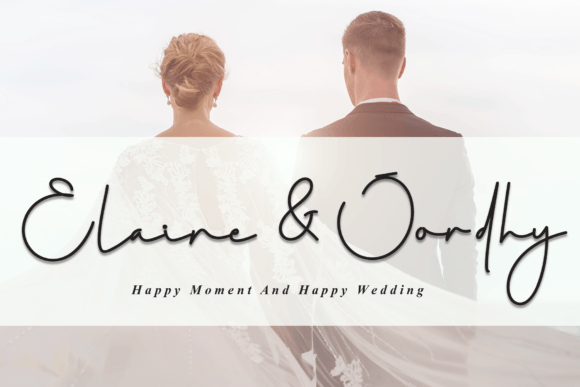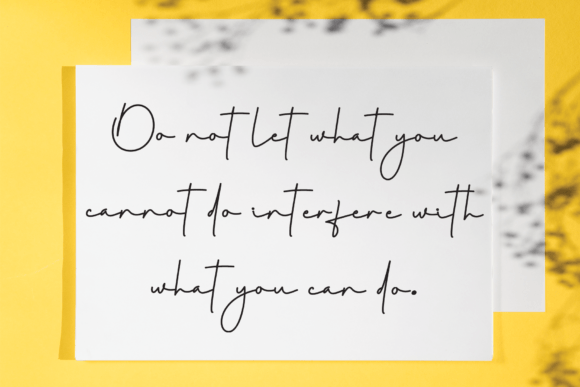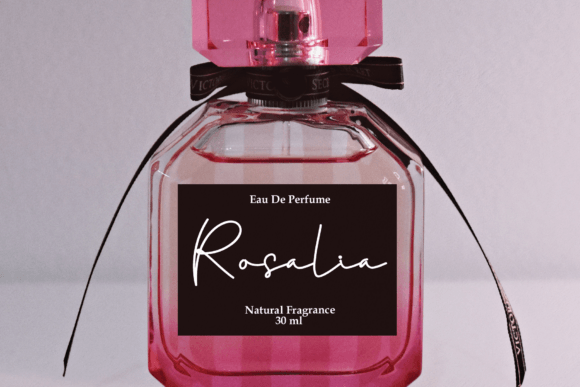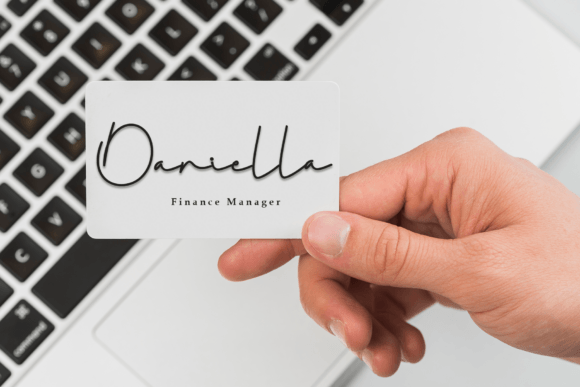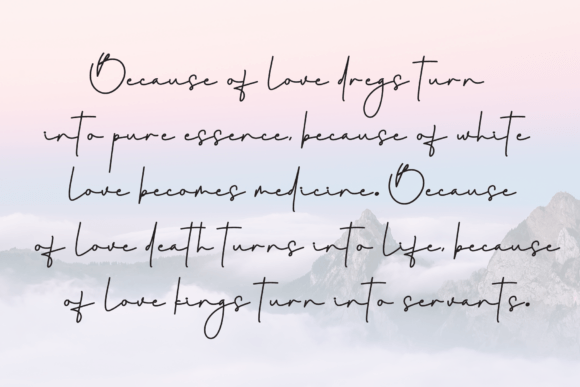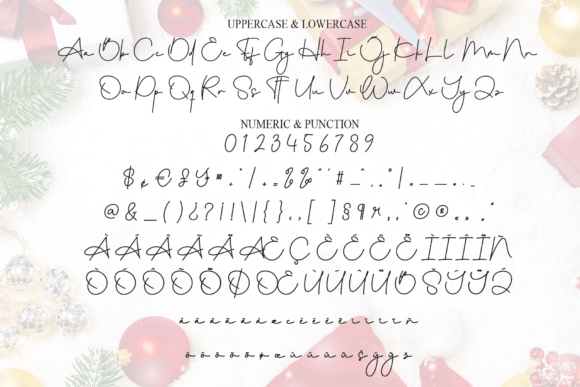
Introducing December Christmas Font: A Beautiful Handwritten Script Font
Are you looking for a font that can add a personal touch to your projects, whether it’s for invitations, branding, or any other creative endeavor? Look no further than the December Christmas font. This beautiful handwritten script font boasts a smooth, flowing style that is sure to capture the hearts of designers and crafters alike.
What Makes December Christmas Font Special?
The December Christmas font is a true gem, with elegant curves and a natural look that sets it apart from other fonts. Its smooth, flowing style gives it a warm, friendly vibe that’s perfect for a wide range of projects. Whether you’re creating invitations, greeting cards, or branding materials, this font is sure to add a touch of elegance and sophistication.
Key Features of December Christmas Font
- Elegant Curves: The December Christmas font features beautiful, flowing curves that give it a natural, handwritten look.
- Smooth, Flowing Style: The font’s smooth, flowing style makes it easy to read and adds a touch of elegance to any project.
- Warm, Friendly Vibe: The December Christmas font has a warm, friendly vibe that’s perfect for creating inviting and engaging designs.
- Easy to Read: Despite its elegant curves and flowing style, the December Christmas font is easy to read, making it perfect for body text and headlines.
The December Christmas font is a versatile font that’s perfect for designers and crafters alike. Whether you’re creating digital designs or handmade crafts, this font is sure to add a touch of personality and style to your work. Here are just a few ways you can use the December Christmas font:
- Invitations: Use the December Christmas font to create beautiful, personalized invitations for weddings, parties, and other special events.
- Branding: Add a touch of elegance and sophistication to your branding materials, including logos, business cards, and letterheads.
- Greeting Cards: Create beautiful, handmade greeting cards for holidays and special occasions.
- Digital Designs: Use the December Christmas font to add a personal touch to your digital designs, including social media graphics, blog posts, and email newsletters.
Why Choose December Christmas Font?
- Unique and Elegant: The December Christmas font is a unique and elegant font that’s sure to stand out from the crowd.
- Versatile: This font is versatile and can be used for a wide range of projects, from invitations to branding.
- Easy to Read: The December Christmas font is easy to read, making it perfect for body text and headlines.
- Warm and Inviting: The font has a warm, inviting vibe that’s perfect for creating engaging and inviting designs.
In conclusion, the December Christmas font is a beautiful handwritten script font that’s perfect for adding a personal touch to any project. With its elegant curves, smooth flowing style, and warm, friendly vibe, this font is sure to capture the hearts of designers and crafters alike. Whether you’re creating invitations, branding materials, or digital designs, the December Christmas font is a versatile and elegant choice that’s sure to make your designs stand out.